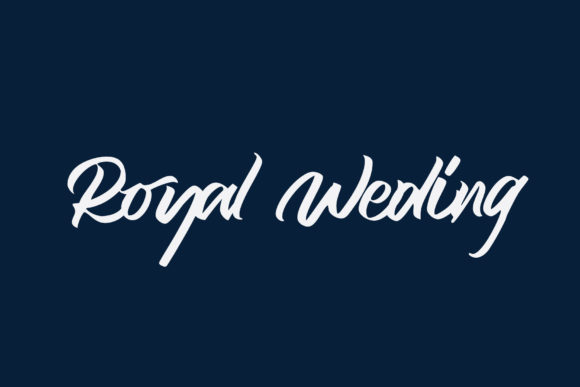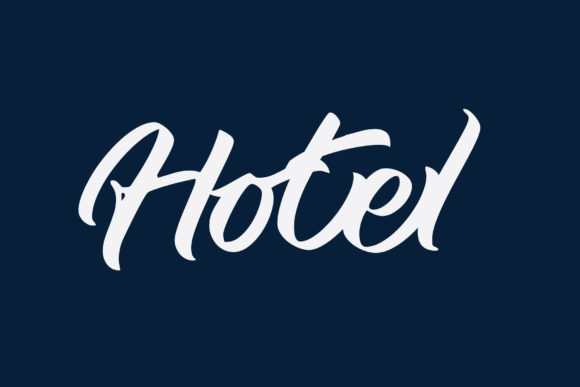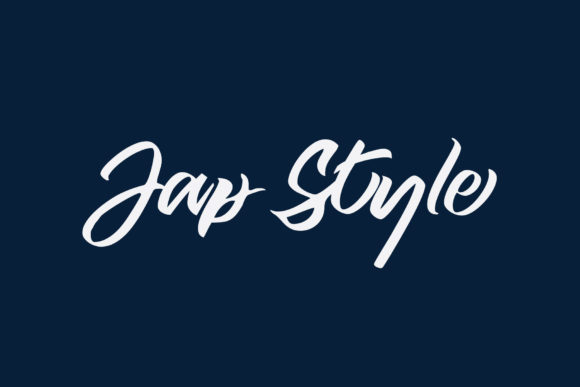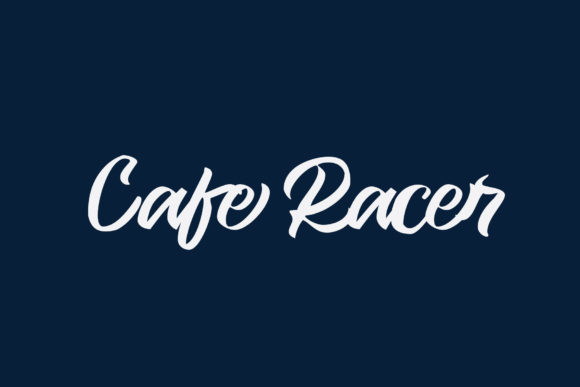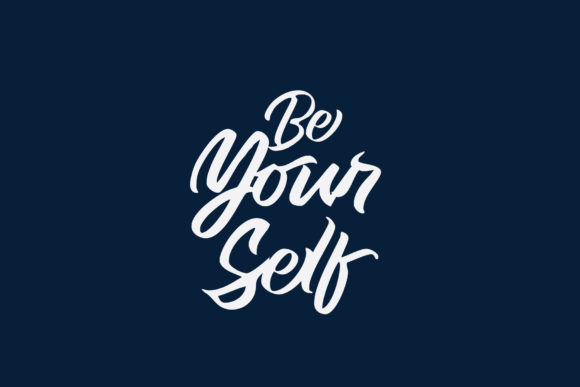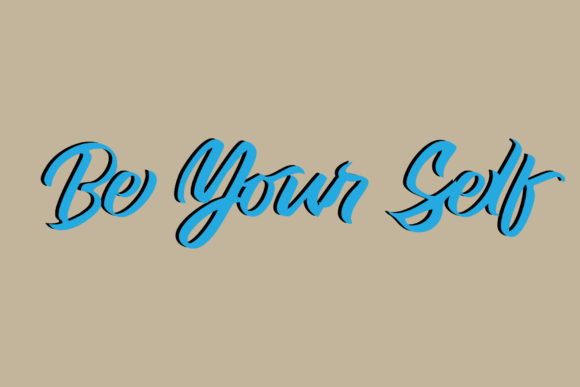
Introduction to Royal Muffin Font
Have you ever stumbled upon the perfect font at the right moment, and it changes the entire direction of your creative project? That’s exactly what happened to me when I discovered the Royal Muffin Font. I was working on a custom invitation for a friend’s wedding, and I was struggling to find the right font to match the elegance and sophistication of the design. That’s when I came across Royal Muffin Font, and I knew I had found the perfect match.
The Royal Muffin Font is a high-quality, handwritten font that exudes a unique charm and sophistication. Its transparent background and delicate script make it a perfect design resource for any creative project. Whether you’re a seasoned designer or a hobbyist, this font is sure to elevate your work and make it stand out from the crowd.
Key Features of Royal Muffin Font
- High-quality, hand-drawn design perfect for creative projects and design resources.
- Comes with a transparent background, allowing for easy customization and flexibility in design.
- Font size: 1,000 characters, providing ample space for creative expression.
- Resolution: Optimized for print and digital use, with a resolution of 300 DPI.
- Unique, whimsical design elements, such as flourishes and ornaments, add a touch of elegance to any design project.
Honest Review: Royal Muffin Font
I recently stumbled upon the Royal Muffin Font, and I’m excited to share my honest review with you. As a designer, I’m always on the lookout for high-quality fonts that can elevate my creative projects.
The Royal Muffin Font does not disappoint. It’s a beautiful, elegant script font that works perfectly for a variety of design needs. Here are some things that I love about it: ✨
- Unique and stylish design that sets it apart from other fonts
- Works well on both digital and print materials
- Limited language support, which may not be ideal for multilingual projects
- Some users may find the font a bit too ornate or over-the-top for their taste
Overall, I’m really impressed with the Royal Muffin Font. It’s a great addition to any designer’s toolkit, and I’m excited to use it in my next creative project. The transparent background and high-quality design make it a versatile and reliable design resource.
Tips for Getting the Most Out of Royal Muffin Font
To get the most out of the Royal Muffin Font, use it in conjunction with other design elements, such as images and graphics. Experiment with different font sizes and styles to create a unique look. Also, take advantage of the transparent background feature to create visually appealing designs.
The Royal Muffin Font is commonly used in creative projects, such as logos, brochures, and social media graphics. It’s also perfect for designing presentations, documents, and websites. With its high-quality design and transparent background feature, the Royal Muffin Font is a valuable resource for any designer.
Yes, the Royal Muffin Font features a transparent background, allowing you to easily combine it with other design elements and backgrounds. This flexibility makes it an ideal choice for designers who need to create visually appealing and sophisticated designs.